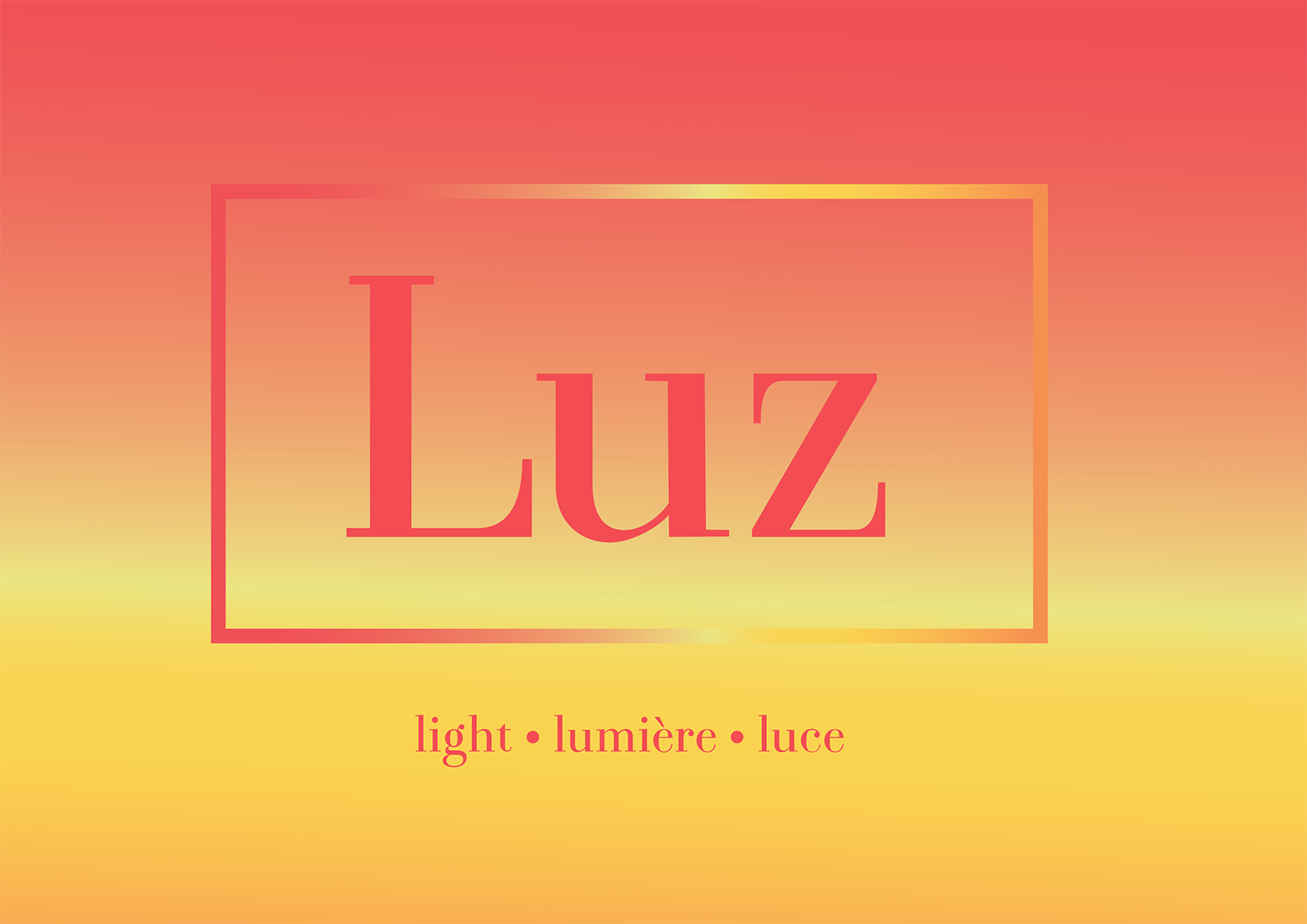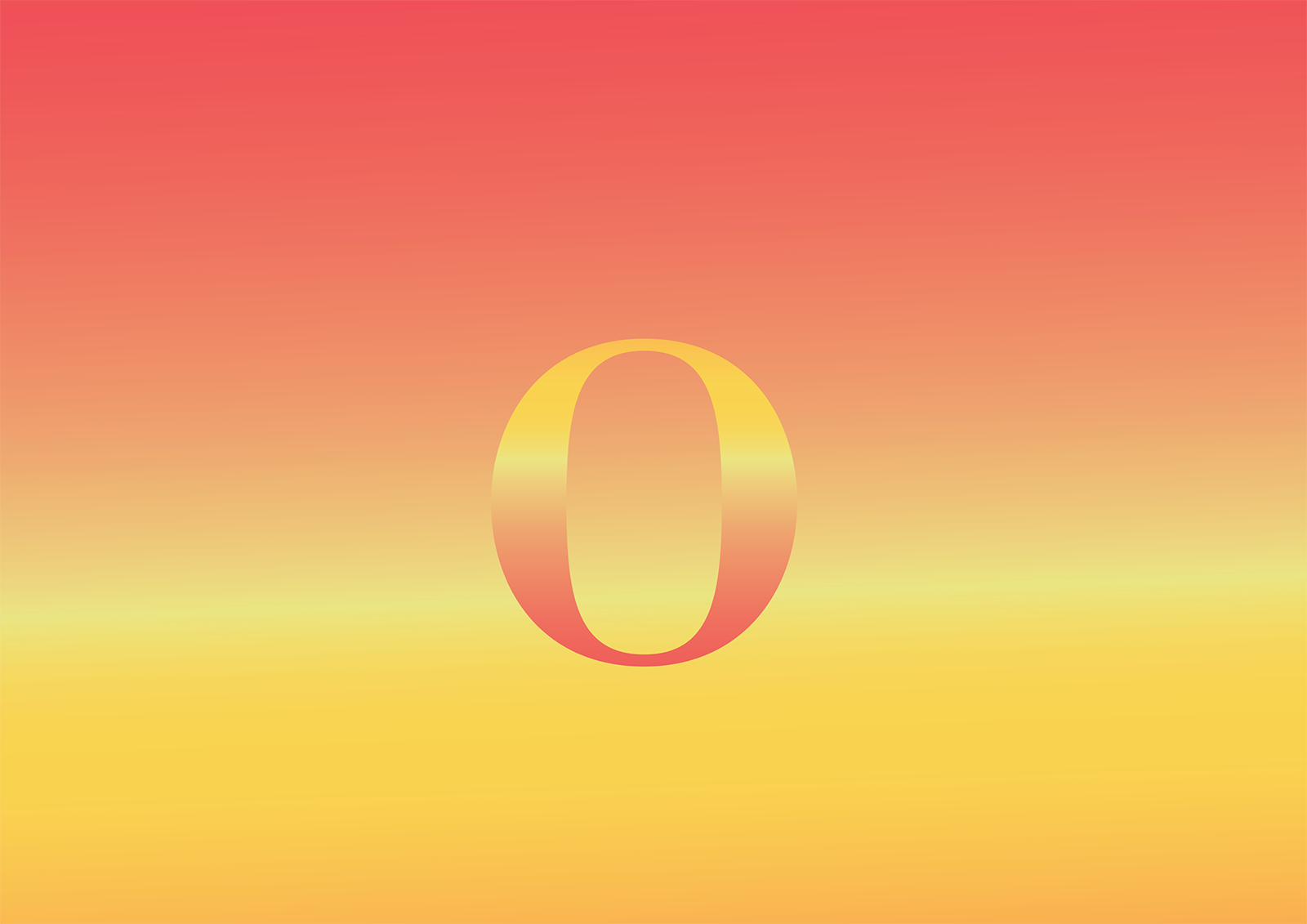
Luz
Luz is a revival typeface, inspired solely in Bodoni and Didot. A display typeface, meant to be spaced out. Elegant simple and mechanical, Luz is light on the page, light on the spacing, light on the matter. It is quite traditional in terms of being a transitional typeface. Its contrast is not high but not extreme. Thus, it is to be considered in a title rather than a text.
The initial idea of this typeface was to be a companion for Trade Gothic. Luz has an elegant personality revoking on its presiders Didot and Bodoni. The elegance that accompanies this typeface is to be used as an eye engager, inviting the viewer into the page, into the text that will follow it. Colourful, tasteful and at the same time fashionable, carries within its beauty the city it was born in; Paris. An ode to the street I live in: Didot, an ode to my mother, my aunt and my grandmother. Luz, light, lumière, luce, the name of the women that inspired me in multiple levels.
Yet, Luz Regular is not completely finished. It has to be corrected in many levels. Like in life, designing is a process, it can simply not be conceived in such a short time. I learnt a lot about my typeface, it is stubborn and determined; it has a mind of its own. In my head I pictured it a little sharper. It will eventually get there.